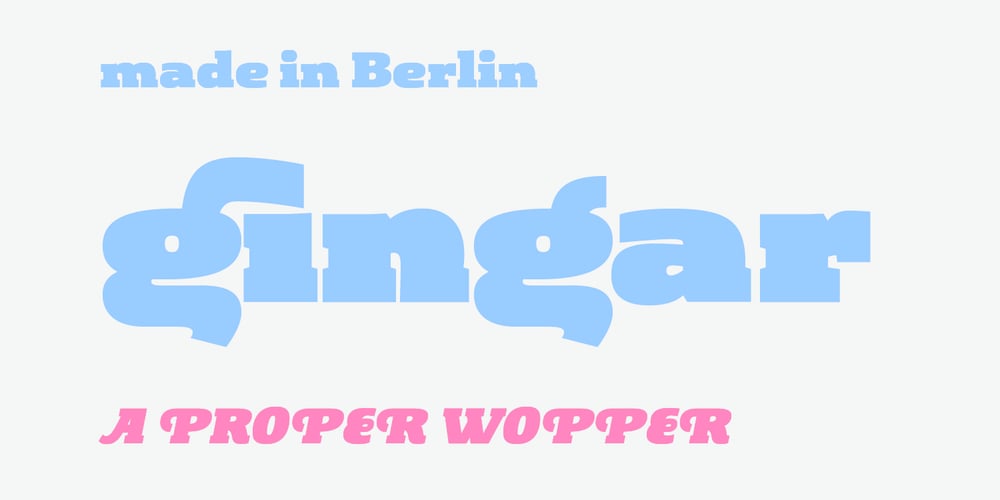
Gingar Font Family was designed by Melli Diete and published by Melli Diete. Gingar contains 30 styles and family package options. Gingar – a headline face, playful and classic – a proper font. Gingar includes swash-characters and ligatures in a wide range of weights from UltraLight to ExtraBlack, plus Italics. Typeface for life, fashion, food, wellness, magazines, corporate design projects and more. Rock with Gingar!